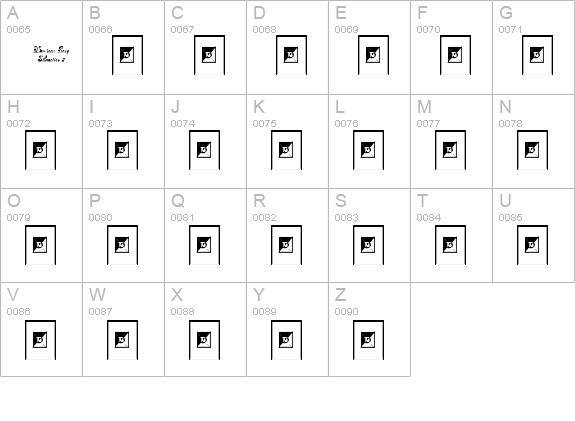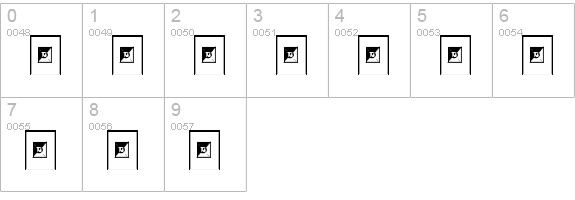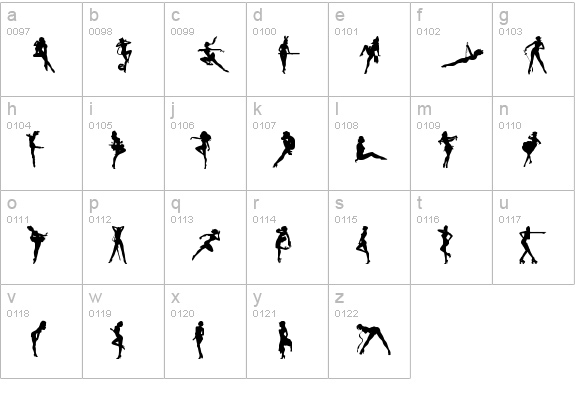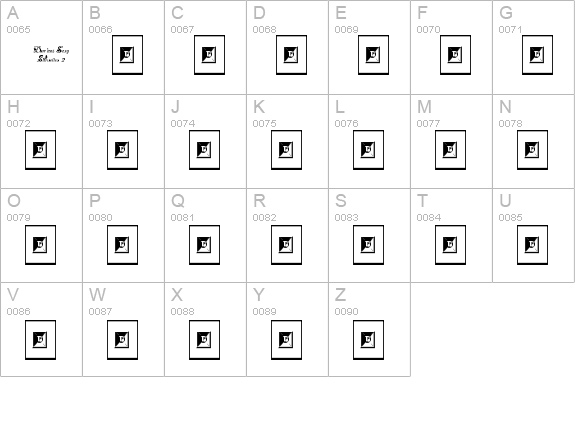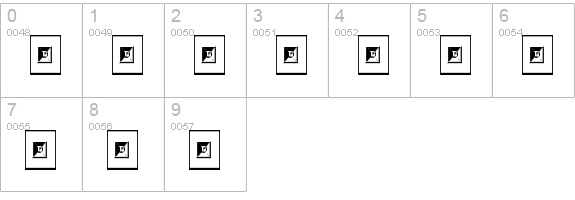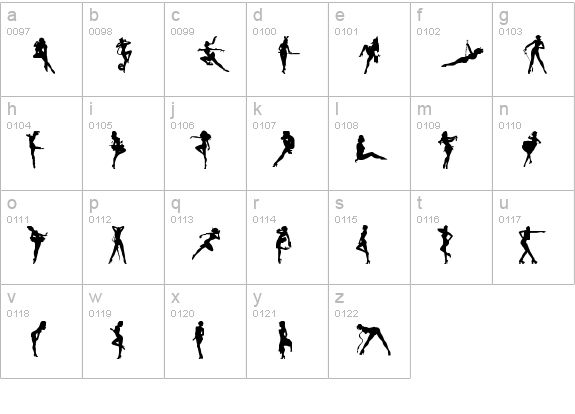
Darrians Sexy Silhouettes 2 Font Details
Darrians Sexy Silhouettes 2 font is an elegant and stylish typeface that exudes sophistication and charm. With its sleek and modern design, this font is perfect for adding a touch of class to any project. This font features beautifully crafted silhouettes that are both eye-catching and unique. Whether you are designing a logo, poster, or invitation, Darrians Sexy Silhouettes 2 font is sure to make a statement. The best part? This stunning font is available for free download at FontsMarket.com. Get your hands on Darrians Sexy Silhouettes 2 font today and elevate your designs to the next level with its timeless appeal.